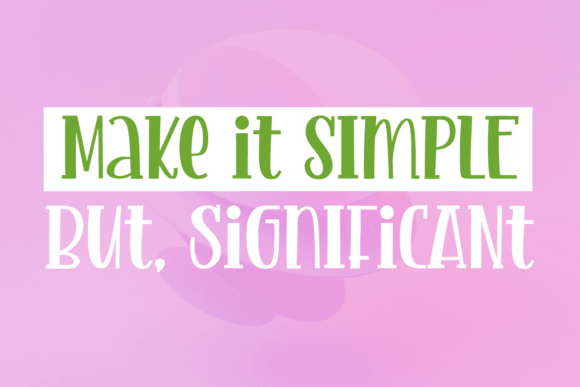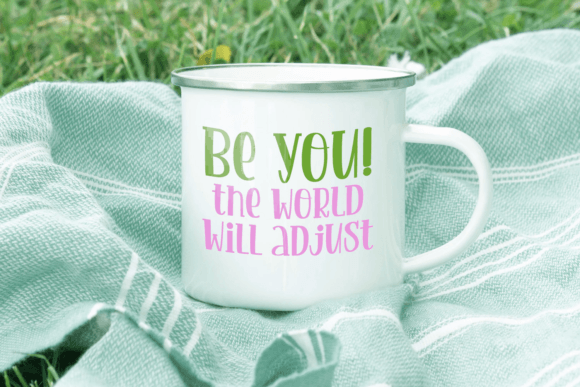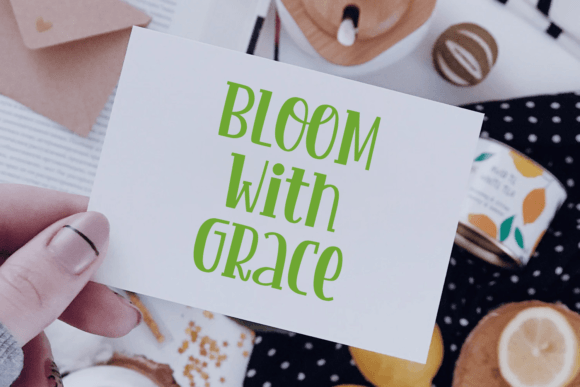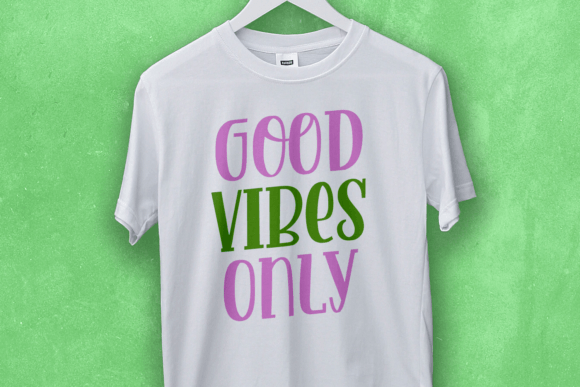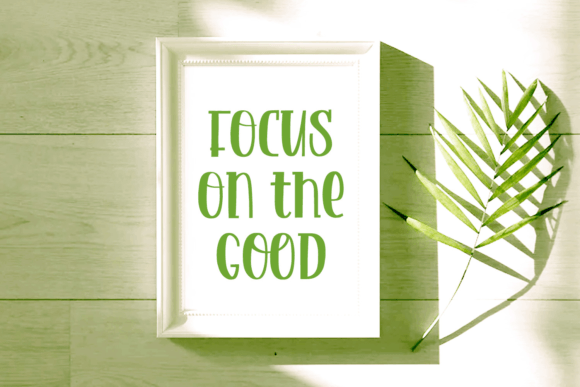
Introduction to Short Matcha Font
As a designer, have you ever found yourself in a creative rut, struggling to bring a new project to life? Perhaps it’s the perfect moment to add a dash of whimsy and personality to your design, and that’s where the delightful Short Matcha Font comes in. With its playful, handwritten style and elegant touch, this high-quality font is sure to elevate your creative project and leave a lasting impression.
Whether you’re working on a branding project, a social media campaign, or a digital product, Short Matcha Font is the perfect design resource to add a touch of joy and creativity. Its light weight and fluid strokes make it ideal for designs that require a delicate appearance, and with its transparent background, you can easily layer it with other design elements.
Key Features of Short Matcha Font
- High-quality font with a unique, minimalist design suitable for creative projects and design resources.
- Features a transparent background, making it easy to customize and integrate into various design elements.
- Designed to be versatile and suitable for use in various contexts, from digital design to print materials.
- Perfect for designers looking for a free, high-quality font to add a touch of elegance and sophistication to their creative projects.
Honest Review: Short Matcha Font
I recently had the chance to work with the Short Matcha Font, and I must say it’s a delightful addition to any design project. One of the things that stands out is the high quality of the font itself – it’s crisp, clean, and perfect for a variety of creative projects.
Here are some things that work well with the Short Matcha Font:
- Its versatility in various design projects, from print to digital
- The high level of detail and intricacy in the font’s design
As with any font, there are some limitations to keep in mind:
- It may not be suitable for extremely large or complex designs
- It’s a relatively simple font, which may not be ideal for projects requiring a lot of visual interest
- Some users may find the font’s style a bit too minimalist
Overall, I’m really impressed with the Short Matcha Font and would definitely recommend it as a design resource for any creative project.
Tips for Getting the Most Out of Short Matcha Font
To get the most out of Short Matcha Font, use it in creative projects where a high-quality, unique font is needed. Consider using the font in combination with other design elements to create a visually appealing and cohesive design.
Common Use Cases for Short Matcha Font
Short Matcha Font is commonly used in branding and marketing materials, such as business cards, brochures, and social media graphics. It can also be used in digital design projects, such as website headers and footers.